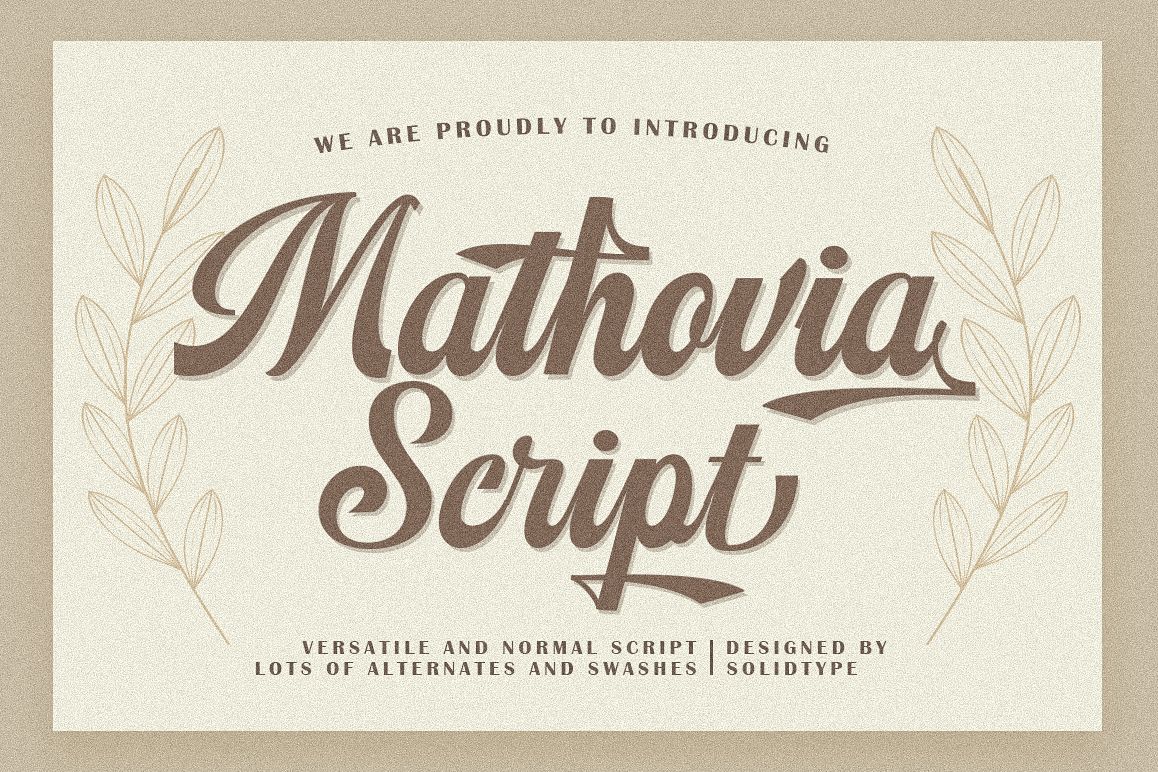
Mathovia Script
Introducing, Mathovia Script, this typeface has a nostalgic feel due to its style, getting a touch of vintage script fonts that is bold, classic and fun, so this font is perfect for your project with a retro / vintage theme. A sweep makes this type of letter more unique so you can use it to create beautiful vintage letters. Opentype features with alternative styles. Can be used for various purposes. such as posters, t-shirts, signage, logos, news, badges etc. International support for most Western languages ​​is included.Features :
• uppercase & lowercase
• numbers and punctuation
• multilingual
• ligatures
• alternates
• swashes